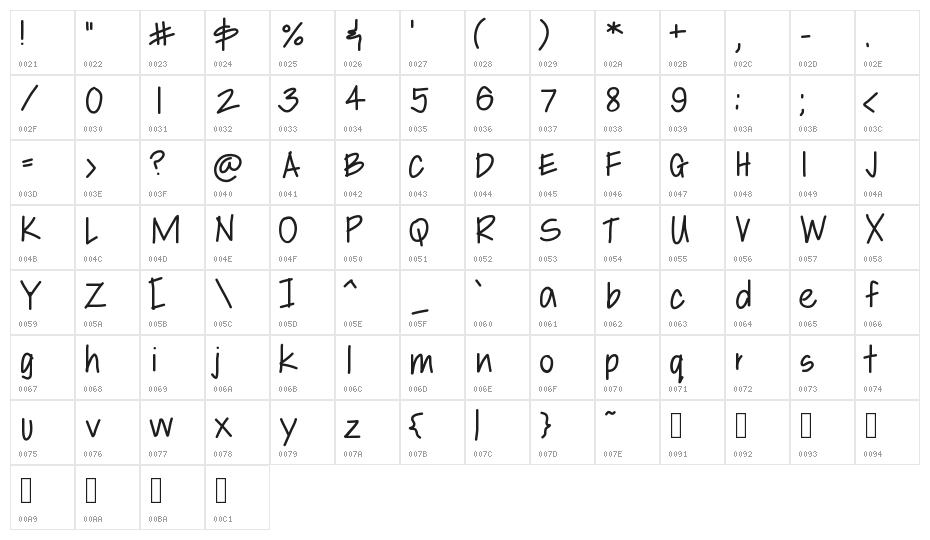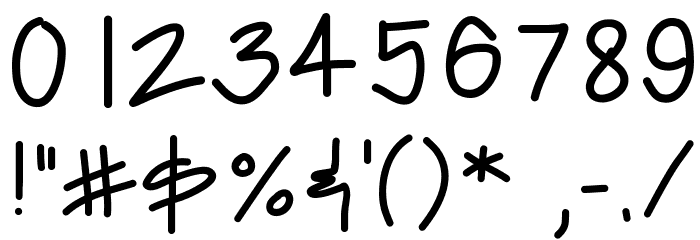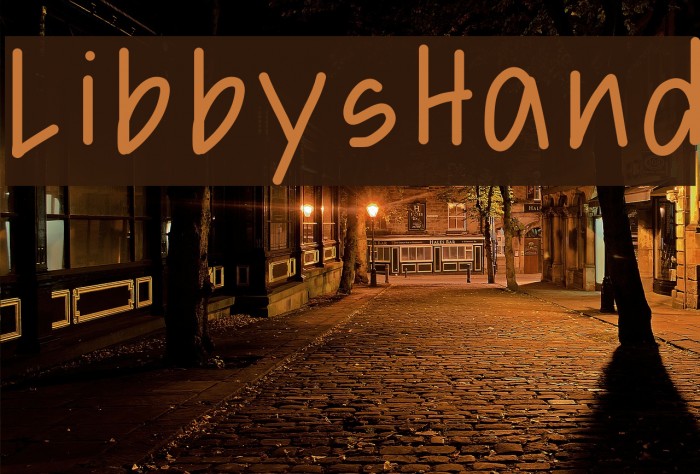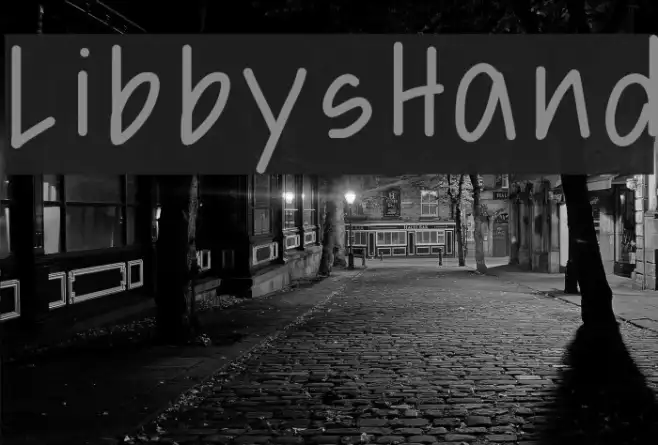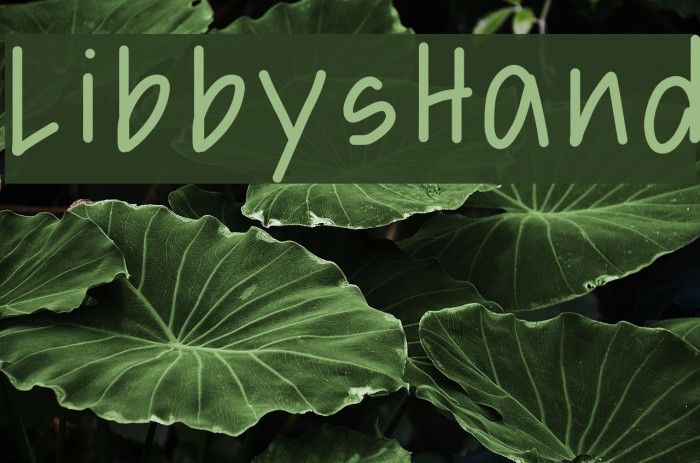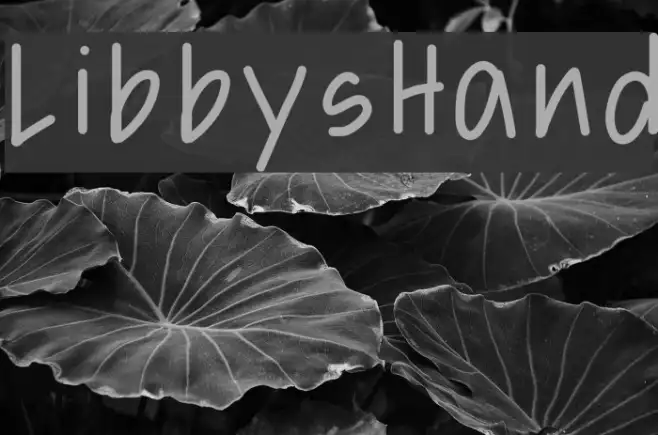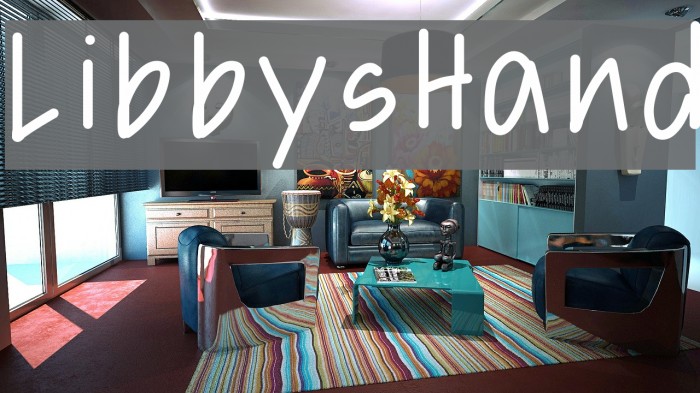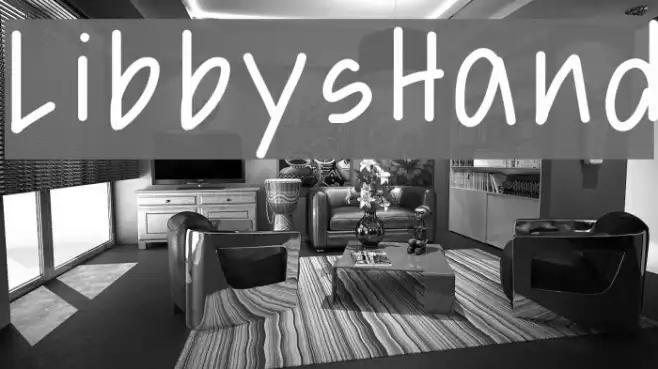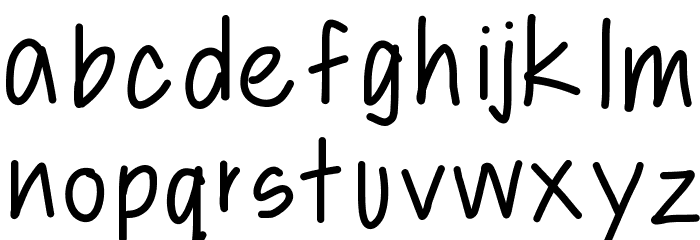
LibbysHand Font
LibbysHand Description
This font exudes a playful and casual handwritten style, characterized by its smooth, flowing lines and slightly irregular shapes. Each letter has a unique, personal touch, reminiscent of a friendly note or a casual journal entry. The strokes are consistent in thickness, providing a harmonious and balanced appearance. The font maintains a legible and approachable feel, making it suitable for informal and creative projects. Its charm lies in the subtle variations in letterforms, which add a sense of authenticity and warmth. The numerals and special characters follow the same playful aesthetic, ensuring a cohesive look across all text elements.
| Use Case | Headlines, Invitations, Personal notes |
| Proposed Projects | Ideal for personal notes, invitations, scrapbooking, and creative projects. |